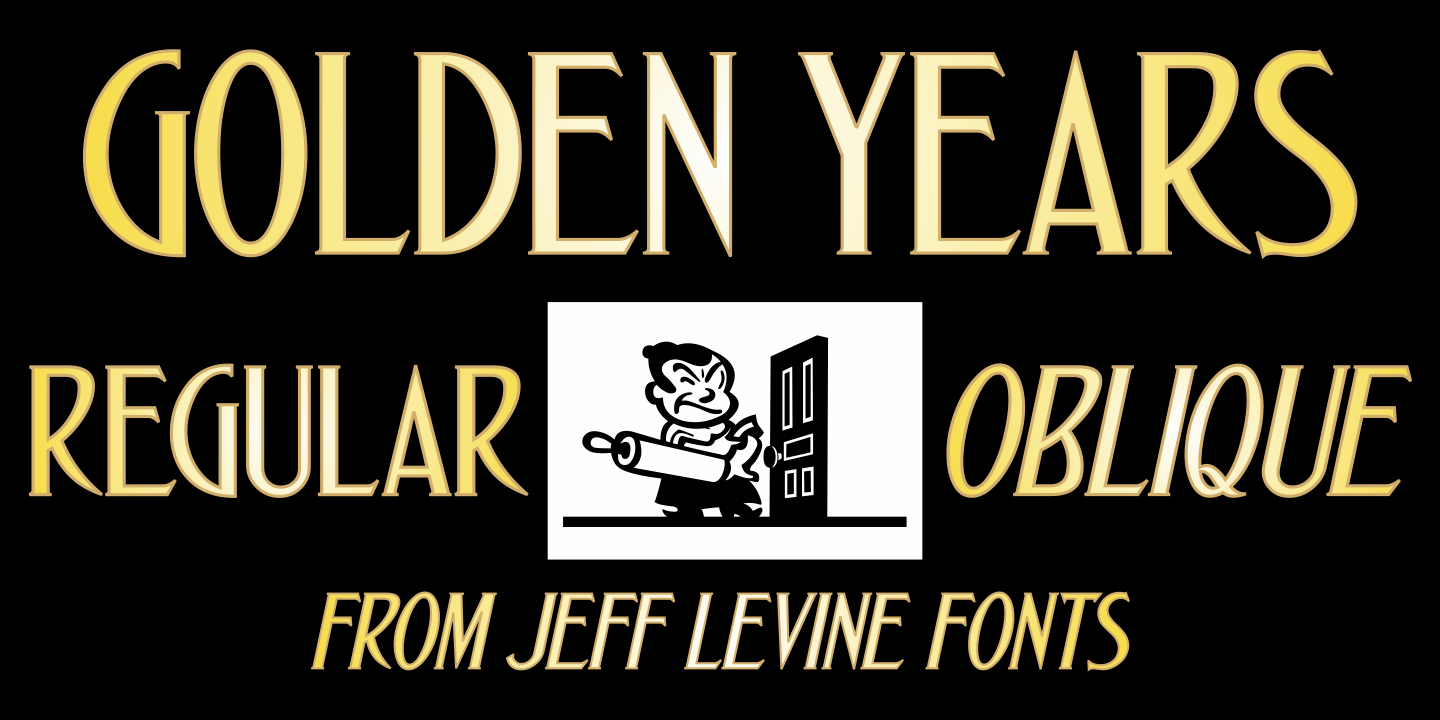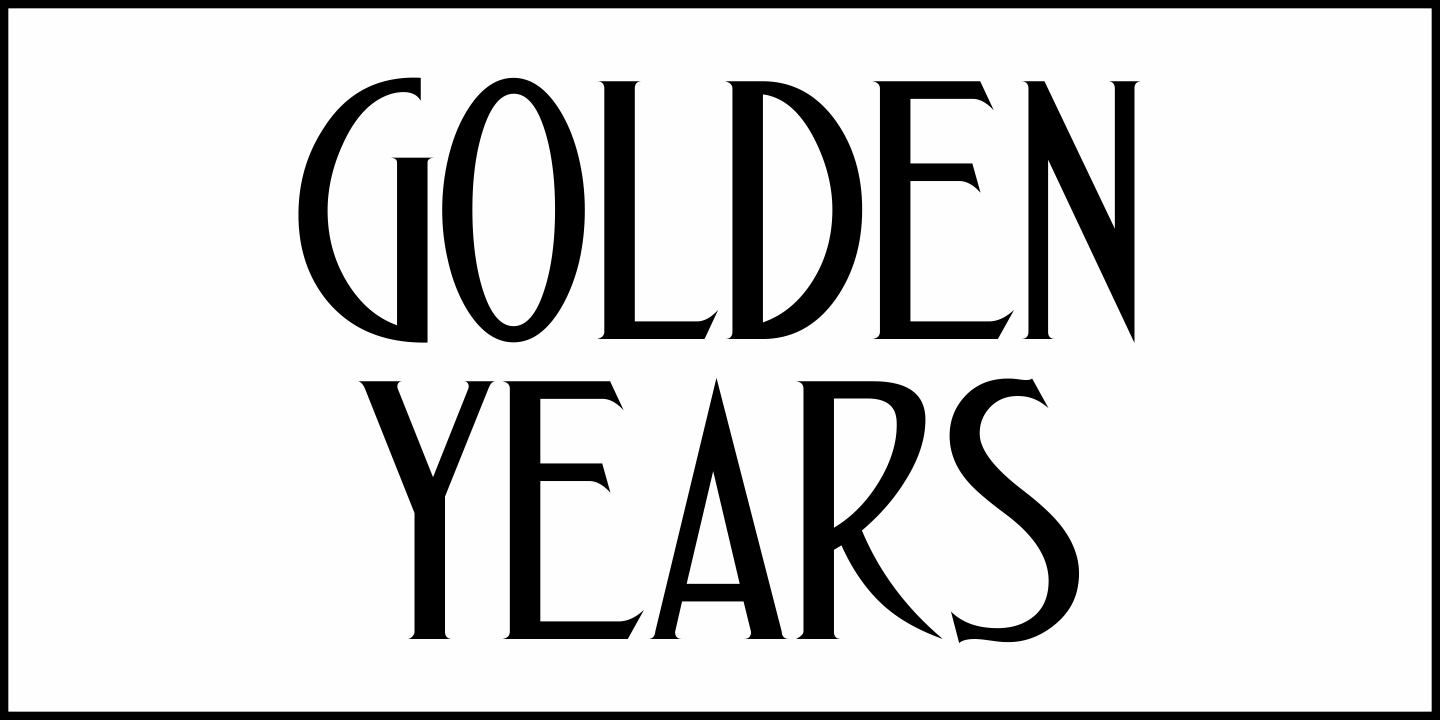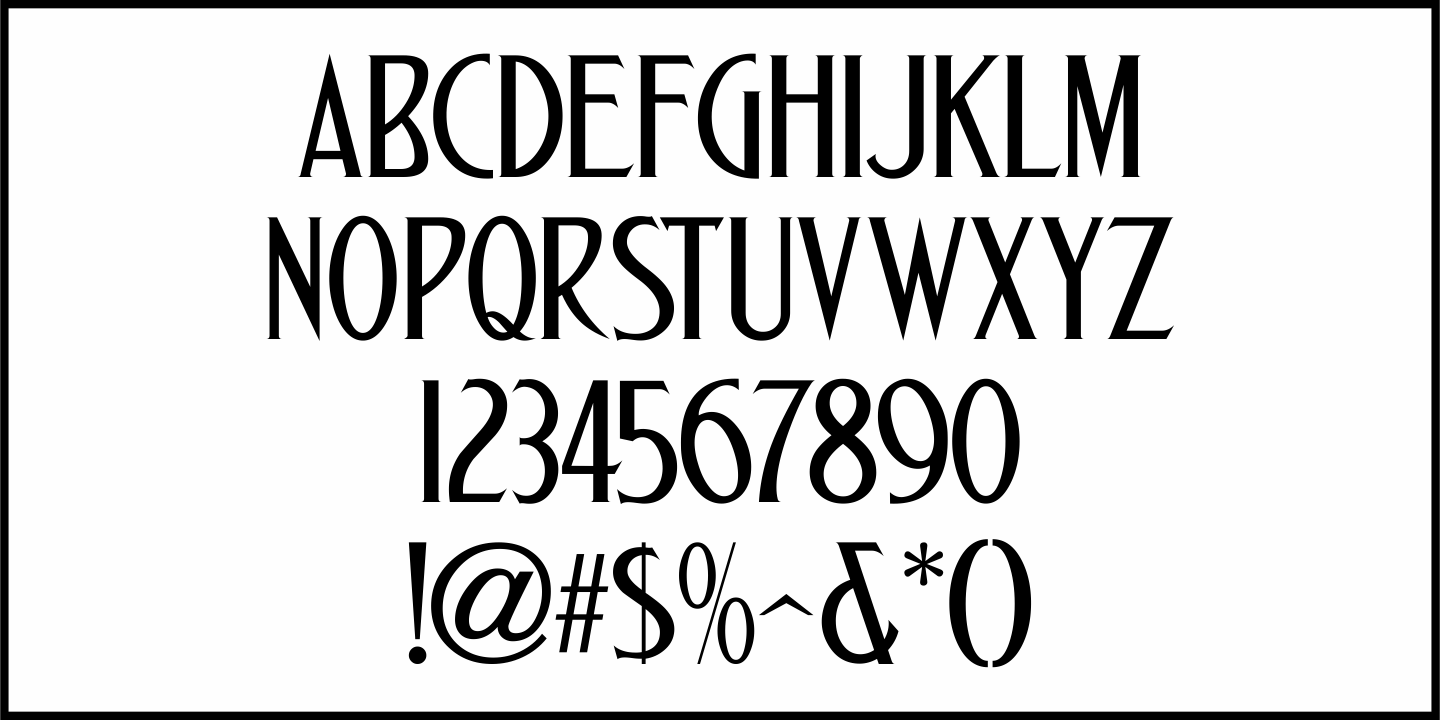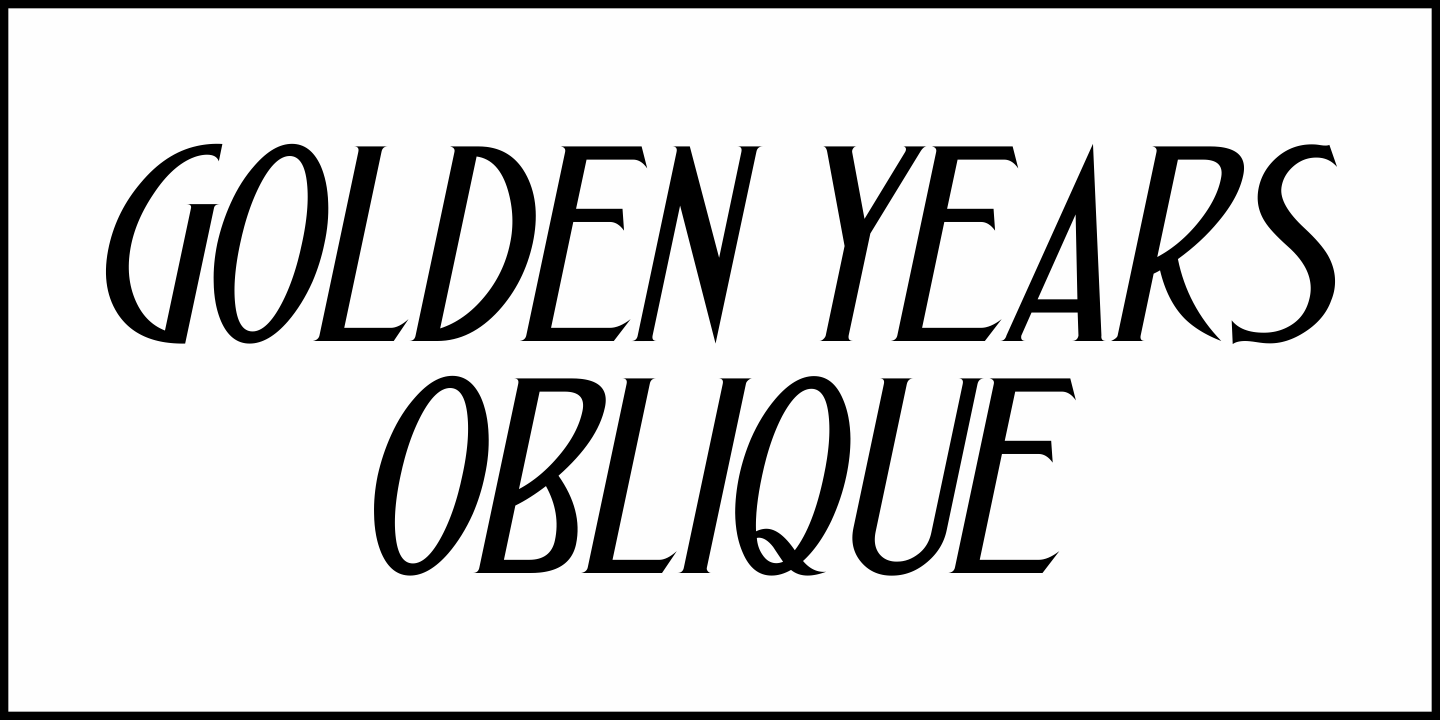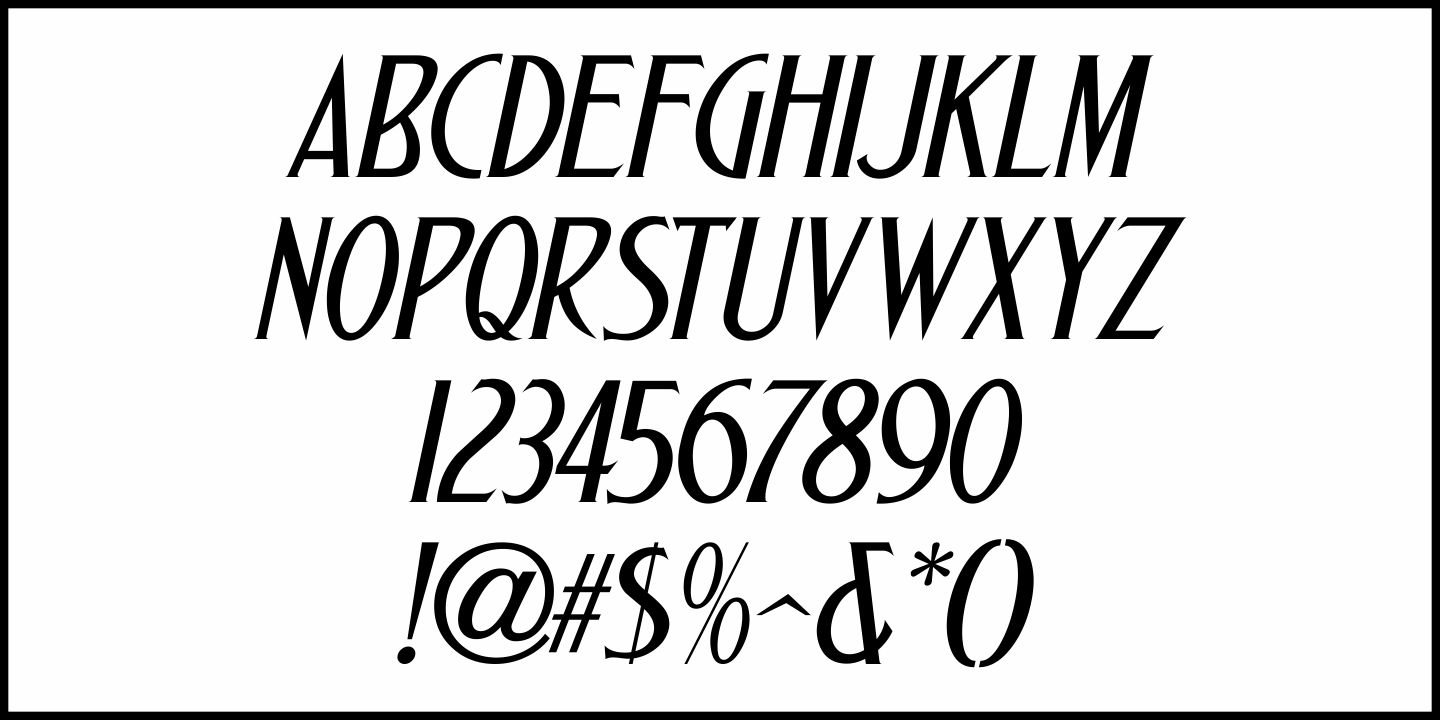
Golden Years
The cover of the sheet music for the 1910 song “We’ve kept the Golden Rule” features a hand lettered and slightly spurred Art Nouveau type style.
As an older couple was pictured below the song’s title, this inspired the name Golden Years JNL for the digital font, which is available in both regular and oblique version.